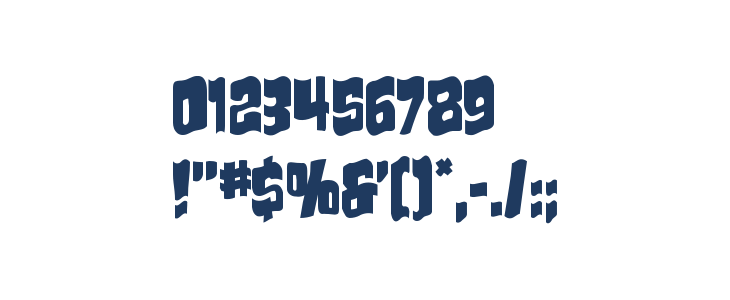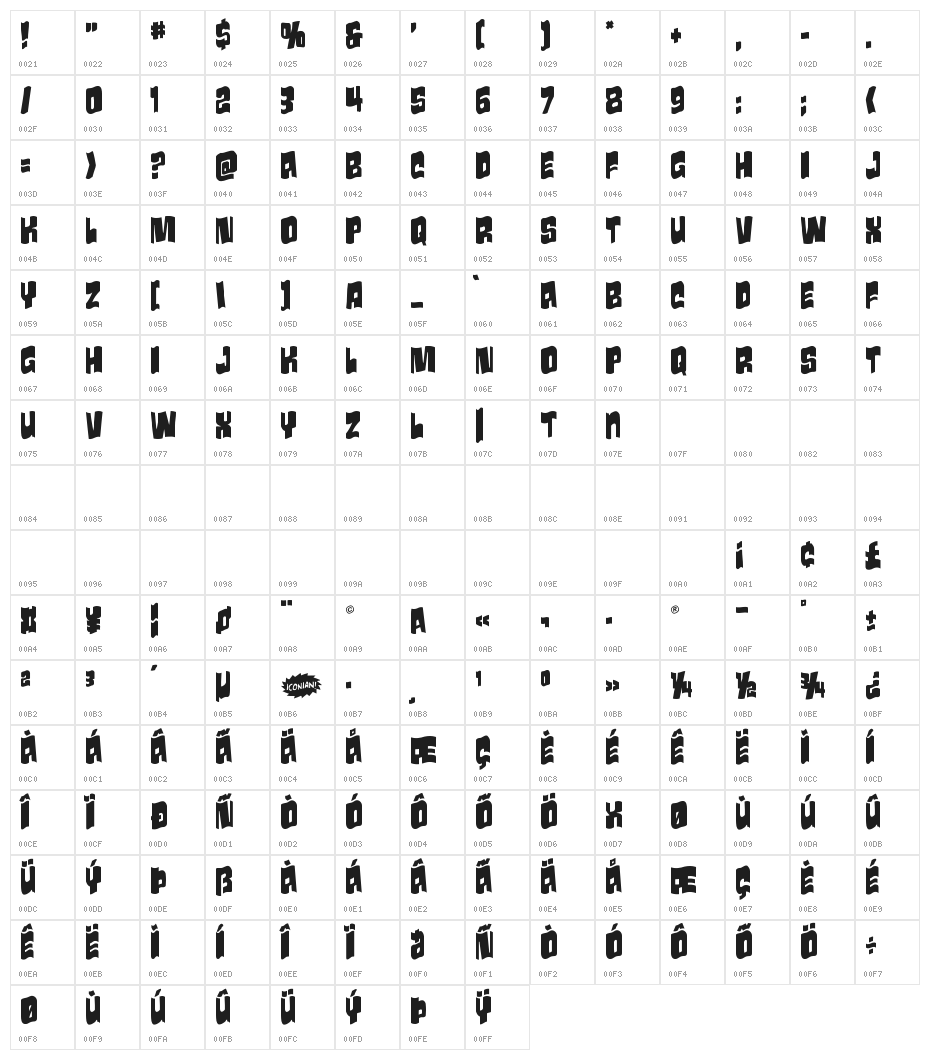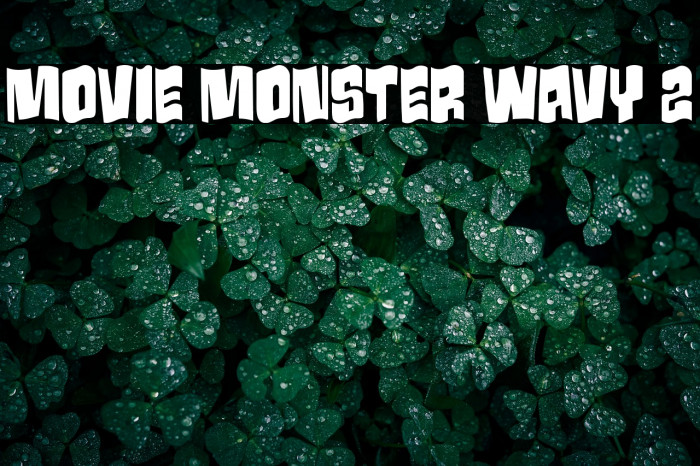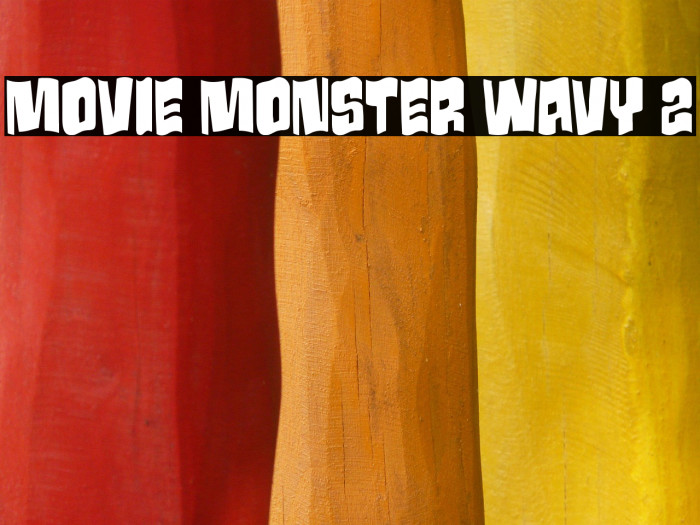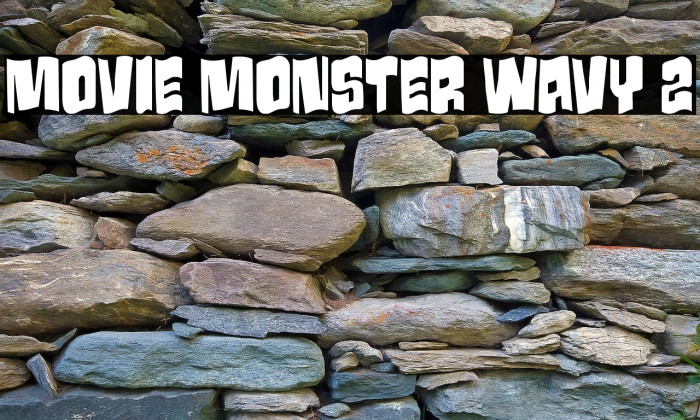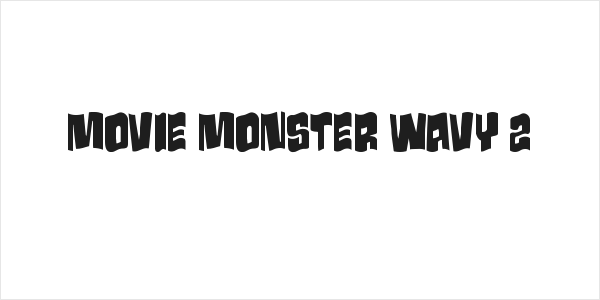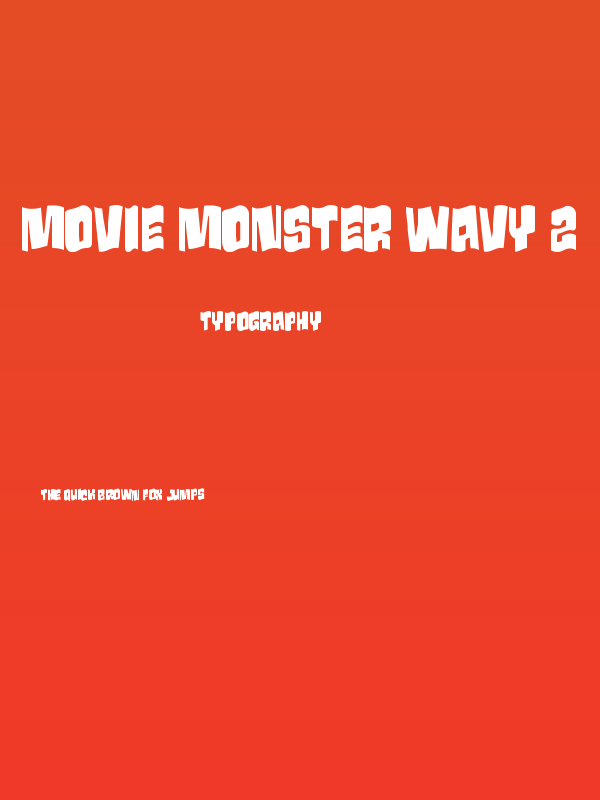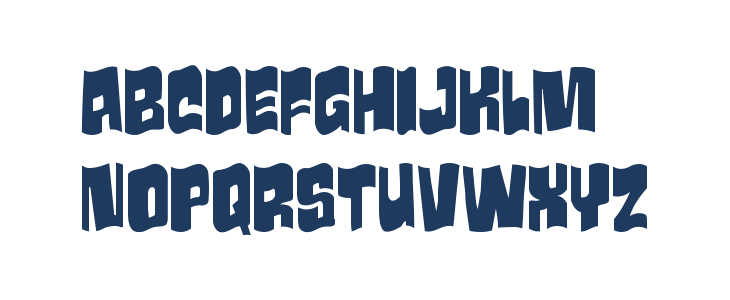
Movie Monster Wavy 2 Font
Movie Monster Wavy 2 Description
This font features a bold, wavy design that gives each character a dynamic and energetic appearance. The uppercase and lowercase letters are crafted with a playful, distorted style, reminiscent of classic monster movie posters. The numbers and special characters maintain this theme, ensuring consistency across all glyphs. The thick strokes and irregular shapes create a sense of movement and excitement, making it ideal for eye-catching designs. Its unique style is perfect for projects that require a touch of whimsy and boldness.